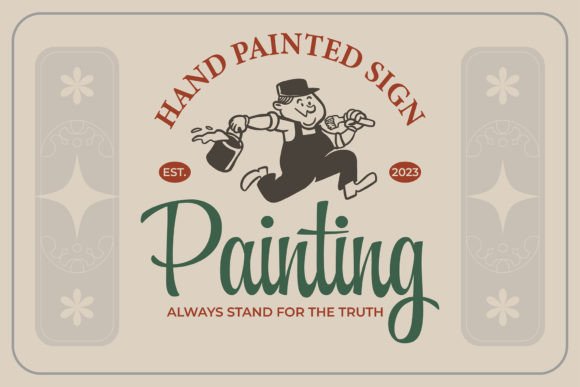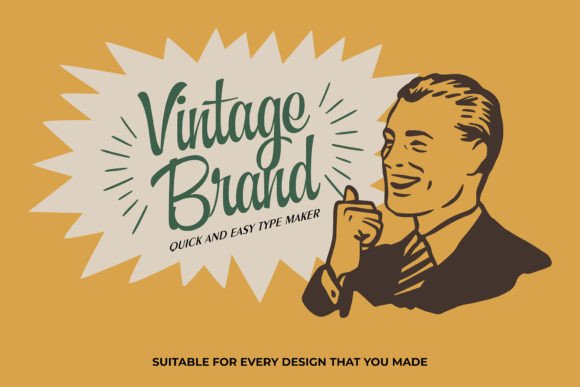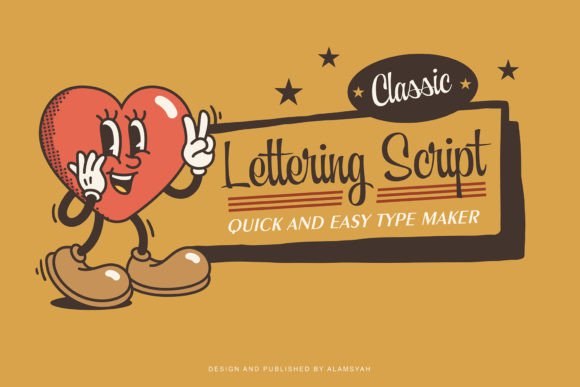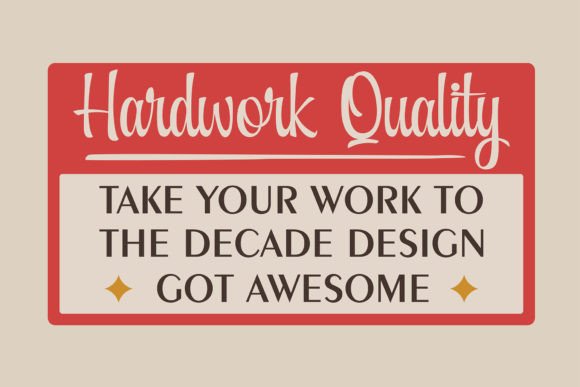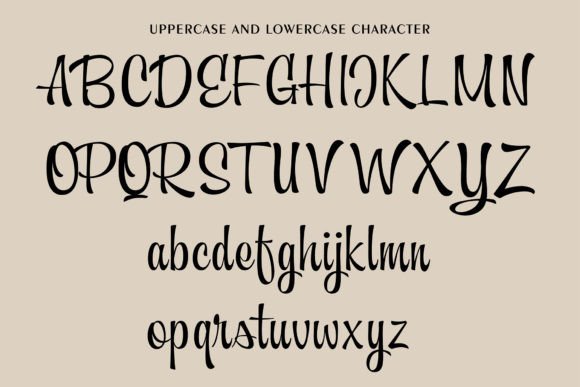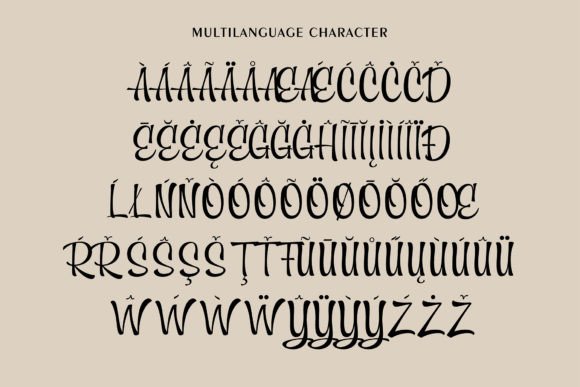
Introducing Creation Font: A Retro-Style Script Font to Elevate Your Designs
In the world of typography, fonts play a crucial role in conveying the tone and personality of a brand or design. With so many fonts available, it can be challenging to find one that stands out from the crowd and adds a unique touch to your work. This is where Creation Font comes in – a creative and retro-style script font that brings a touch of nostalgia to your designs.
The Inspiration Behind Creation Font
Creation Font’s elegant, flowing letterforms are inspired by vintage signage and hand-lettered typography. The font’s design is rooted in the classic scripts of the past, with a modern twist that makes it perfect for contemporary designs. The result is a font that exudes a sense of sophistication and whimsy, making it ideal for a wide range of applications.
What Makes Creation Font Special?
So, what sets Creation Font apart from other fonts? Here are a few key features that make it a standout:
- Unique Style: Creation Font boasts a distinctive style that is both elegant and playful. Its retro vibe is sure to transport your designs back in time, while its modern sensibilities ensure it remains relevant today.
- Playful Curves: The font’s flowing curves and rounded edges add a touch of whimsy to any design, making it perfect for projects that require a dash of personality.
- Versatility: Creation Font is incredibly versatile, making it suitable for a wide range of applications, from logos and packaging to invitations and branding materials.
Uses for Creation Font
With its unique style and playful curves, Creation Font is perfect for a variety of design projects. Here are some ideas to get you started:
- Logos: Create a memorable logo that stands out from the crowd with Creation Font’s elegant and sophisticated letterforms.
- Packaging: Add a touch of nostalgia to your packaging designs with Creation Font’s retro-style script.
- Invitations: Make your invitations truly special with Creation Font’s whimsical and charming letterforms.
- Branding Materials: Elevate your branding materials, such as business cards and brochures, with Creation Font’s unique style.
Tips for Using Creation Font
To get the most out of Creation Font, here are a few tips to keep in mind:
- Experiment with Sizes: Creation Font looks great in a variety of sizes, from large headlines to smaller body text.
- Play with Colors: The font’s retro vibe pairs perfectly with bold, bright colors, but it also works well with more muted, pastel shades.
- Mix and Match: Don’t be afraid to combine Creation Font with other fonts to create a unique and eye-catching design.
In conclusion, Creation Font is a creative and retro-style script font that is sure to elevate your designs. With its elegant, flowing letterforms and playful curves, it’s the perfect choice for designers and crafters looking to add a touch of nostalgia and whimsy to their work. Whether you’re creating logos, packaging, invitations, or branding materials, Creation Font is the perfect tool to let your creativity shine.